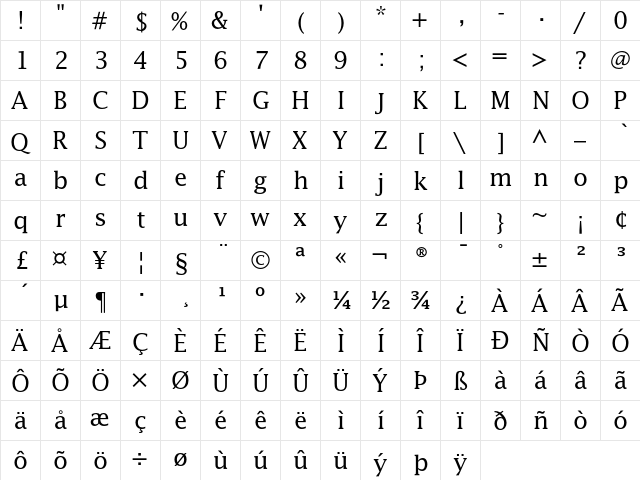
Lucida Roman
Design Context for Lucida Typeface
Lucida offers clean, dependable letterforms without strong stylistic allegiance, making it a practical choice for designers who need flexibility.
Pro Tip: Use Lucida in both headline and body roles to test its range before committing to a single application.